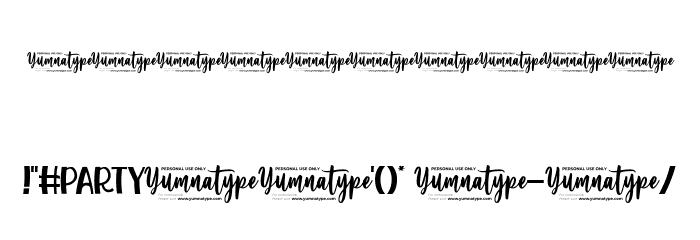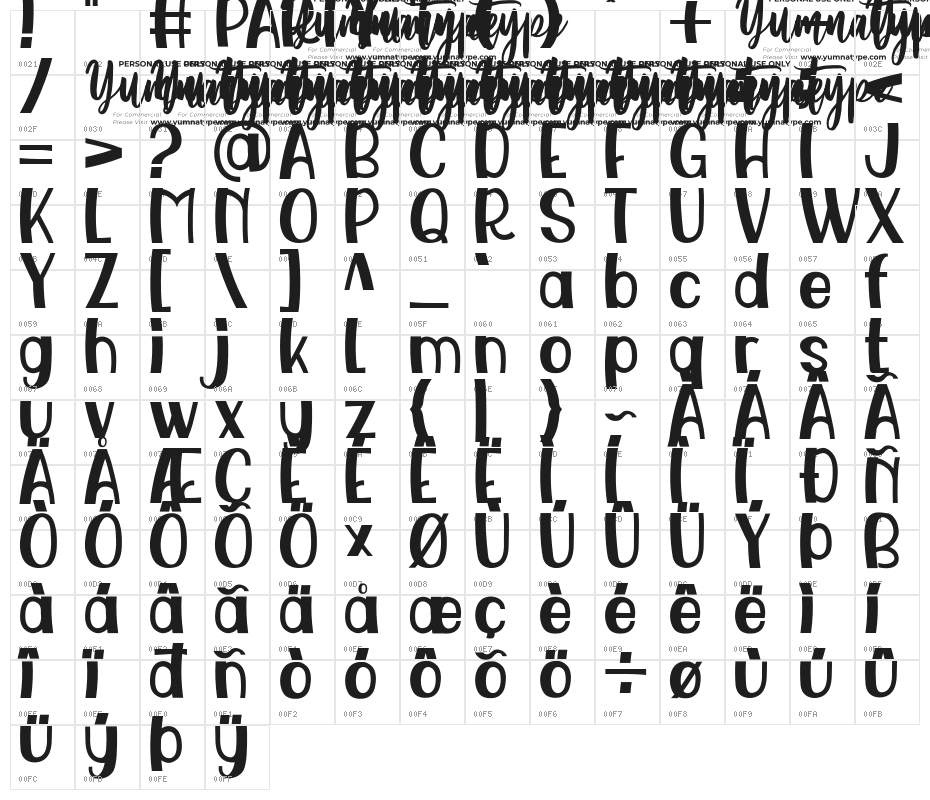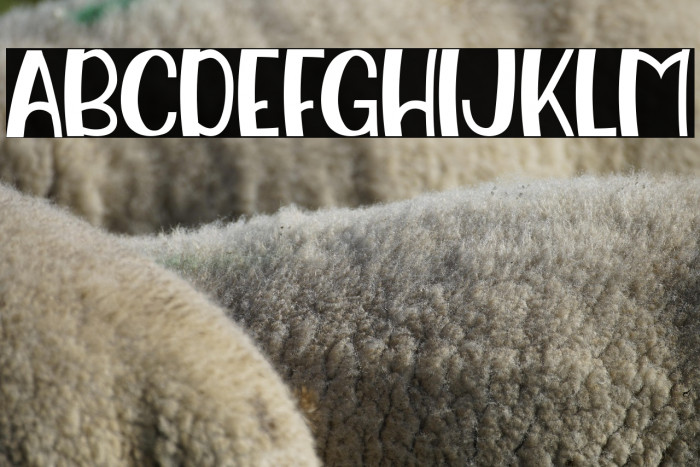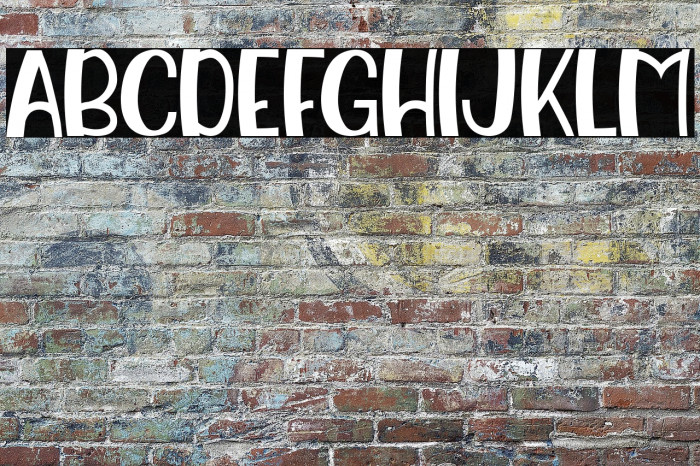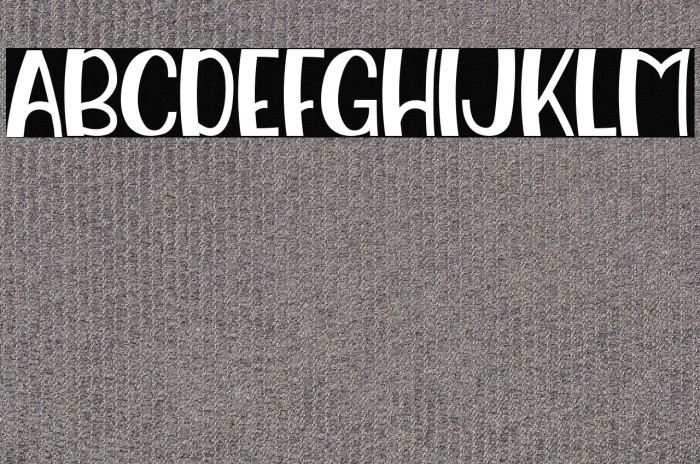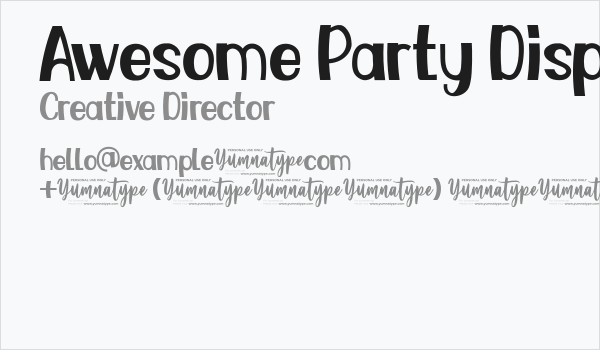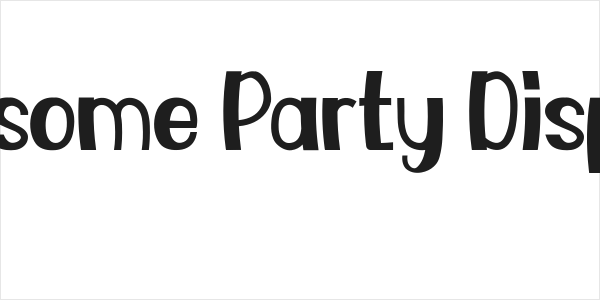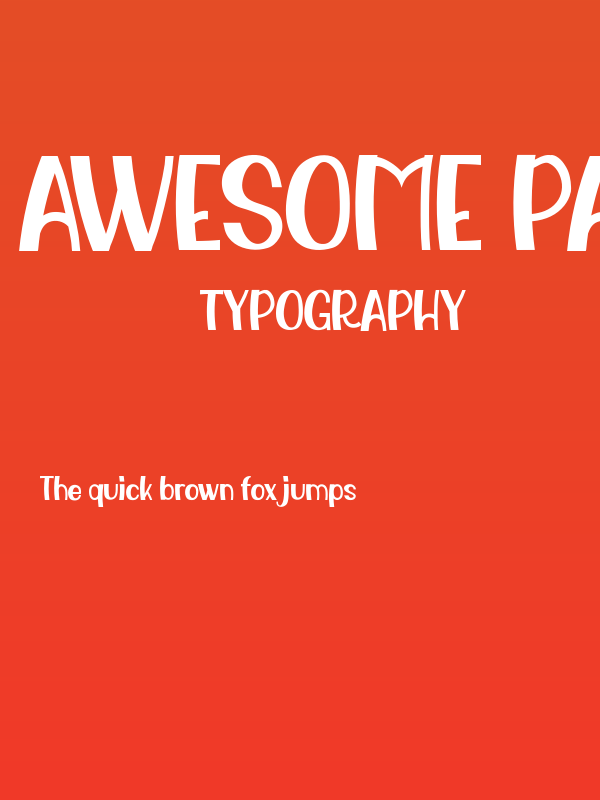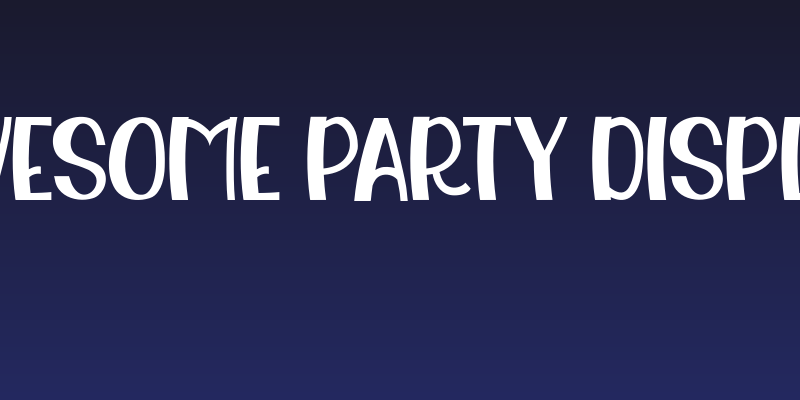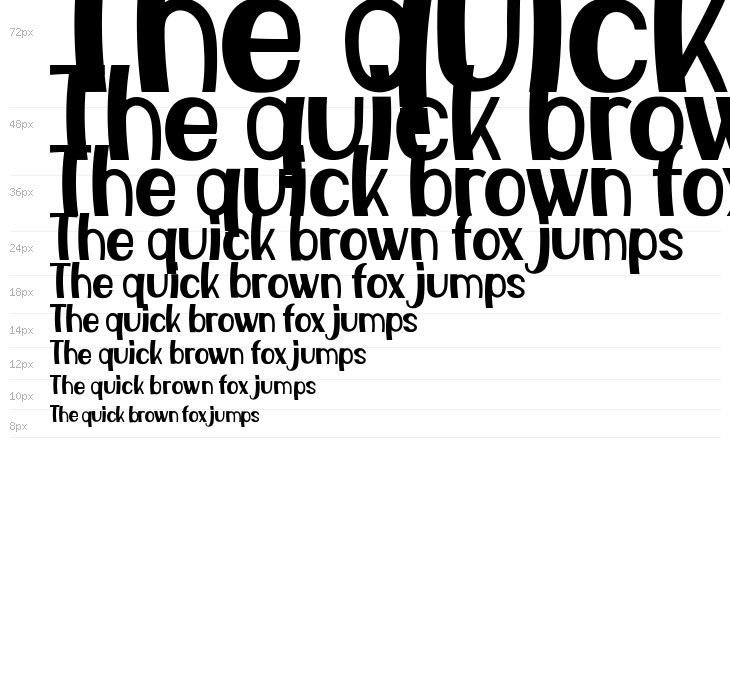
Awesome Party Display Font
Awesome Party Display Description
This font exudes a playful and lively character, with its bold and curvy letterforms that seem to dance across the page. The uppercase letters are particularly striking, with exaggerated curves and varying stroke widths that add a sense of movement and energy. The lowercase letters maintain this playful aesthetic, offering a harmonious balance between readability and style. The numbers and special characters are equally dynamic, making this font perfect for capturing attention. Its unique style is ideal for projects that require a fun and engaging visual impact.
| Overall Style | Playful, Energetic |
| Proposed Projects | Ideal for party invitations, children's book covers, playful branding, and festive event posters. |